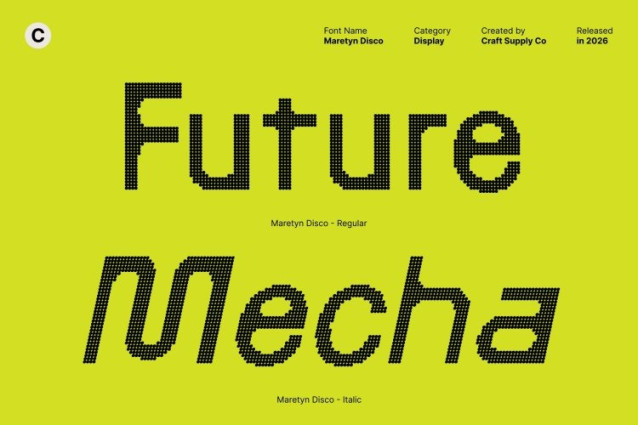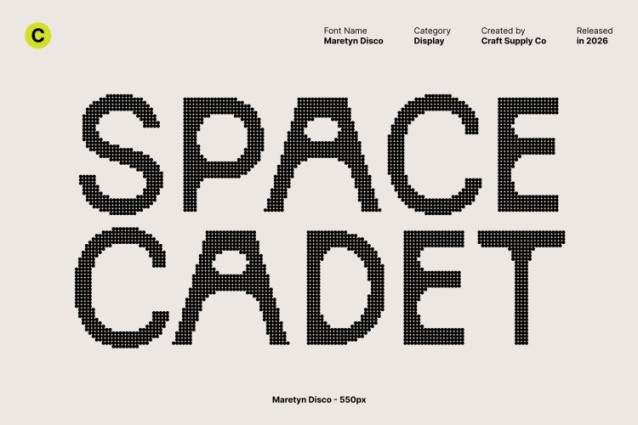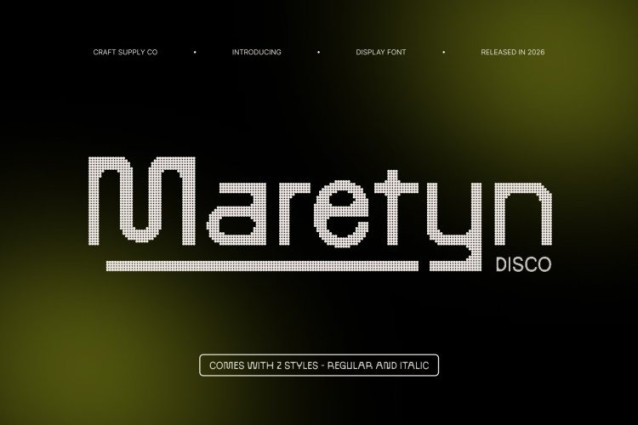
Maretyn Disco Font
Maretyn Disco Font This font offers a contemporary interpretation of the classic sans serif, combining modern simplicity with dependable functionality. Its clean lines and balanced proportions ensure smooth readability for both text and display use, while a gentle disco-inspired rhythm adds freshness and visual interest.
Modern Shape with Refined Appeal
Defined by sleek, contemporary letterforms, communicates modernity and quiet sophistication. The refined structure gives designs a polished look, while the disco influence introduces a light sense of movement that keeps layouts feeling current and engaging.
Balanced Form, Function, and Clarity
This is designed to balance clarity and aesthetics with ease. It performs beautifully in body text, editorial layouts, and branding headlines, delivering legibility without sacrificing style. The result is typography that feels professional, confident, and subtly expressive.
Reliable for Text and Display Applications
From long-form text to prominent titles, adapts seamlessly across sizes and media. Ideal for branding, editorials, digital interfaces, and print materials, it provides a clean, versatile typographic solution enhanced by modern simplicity and understated disco energy.